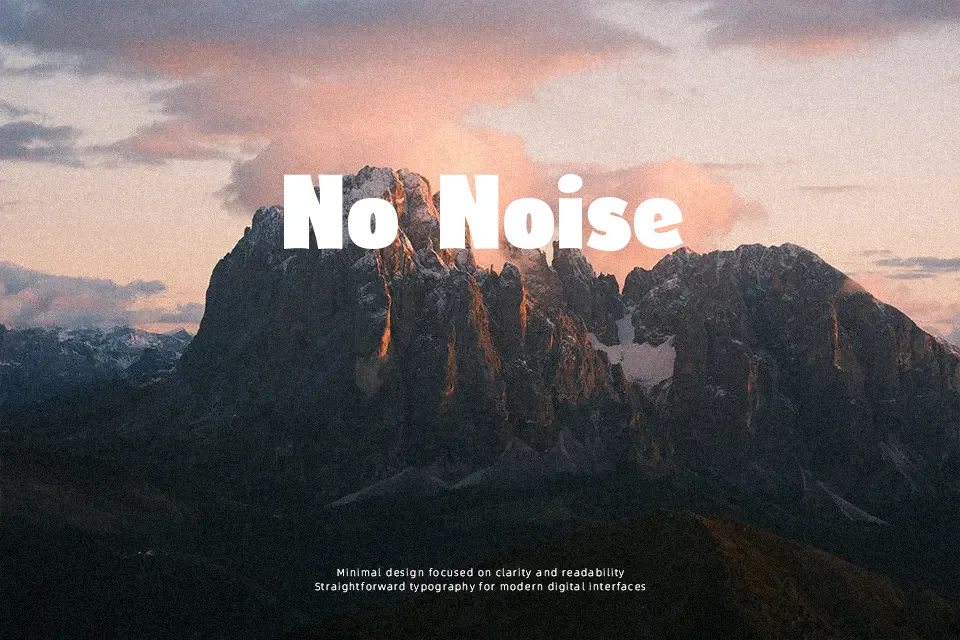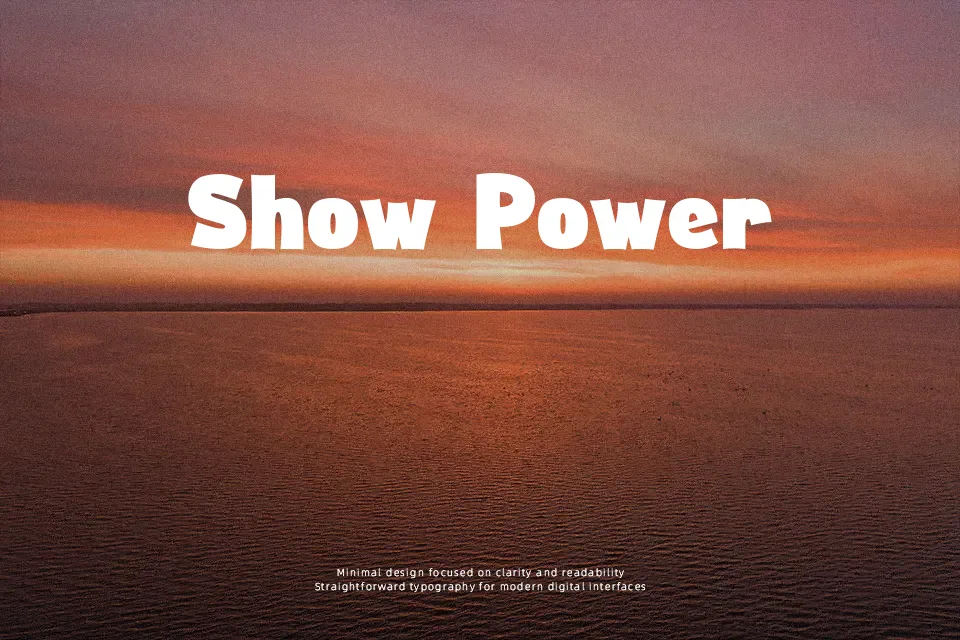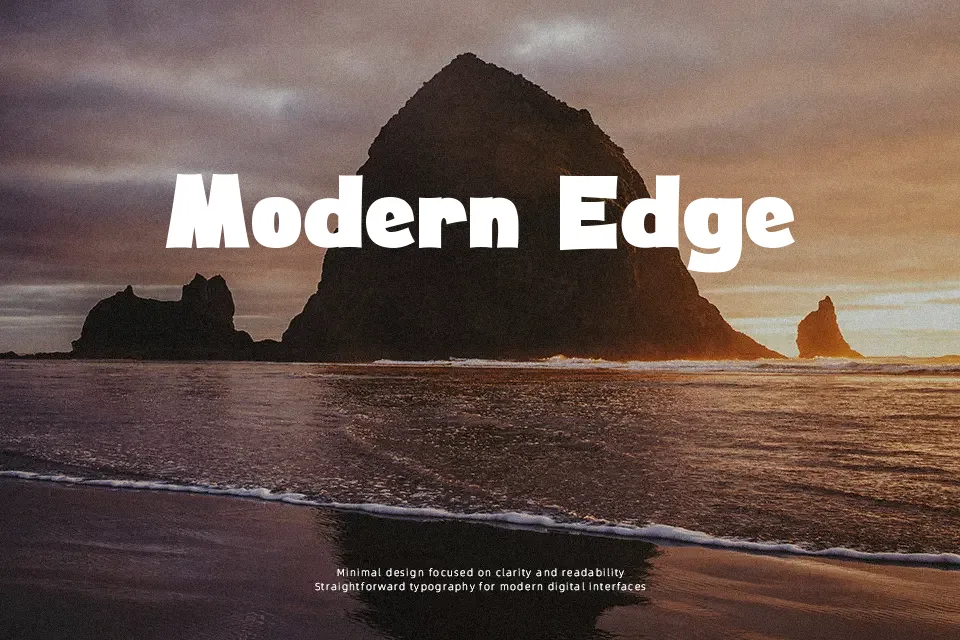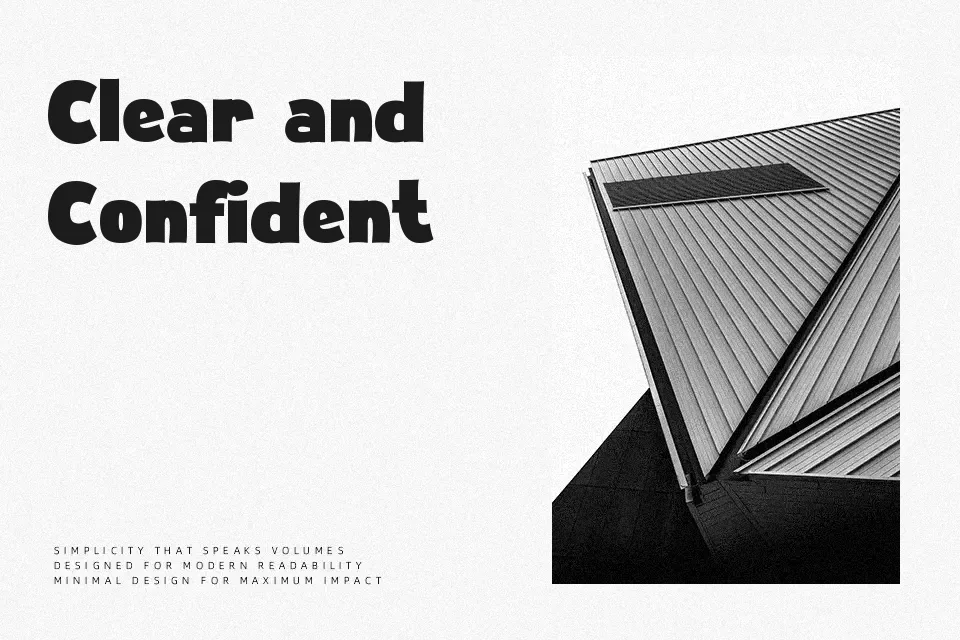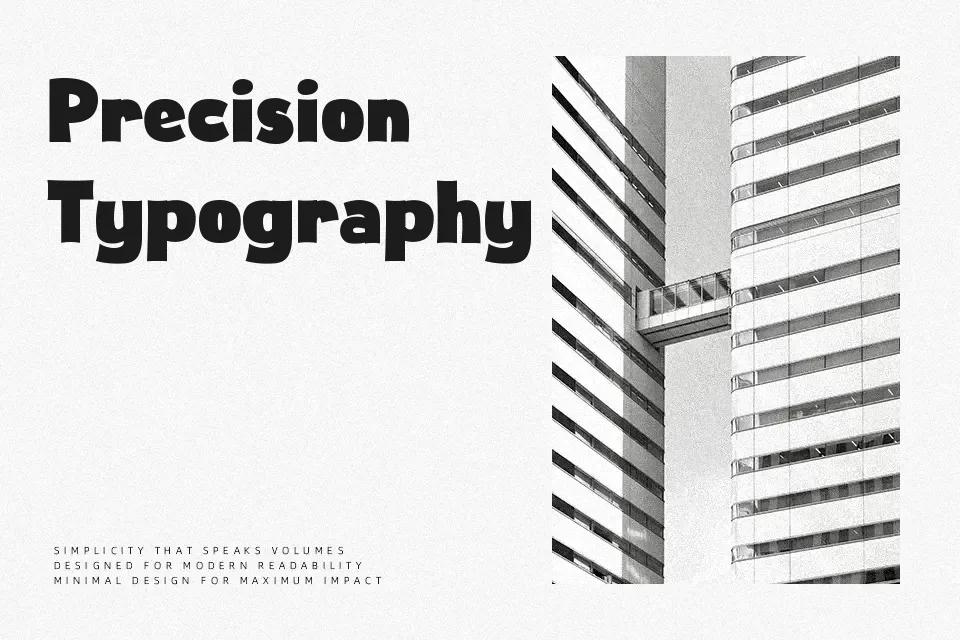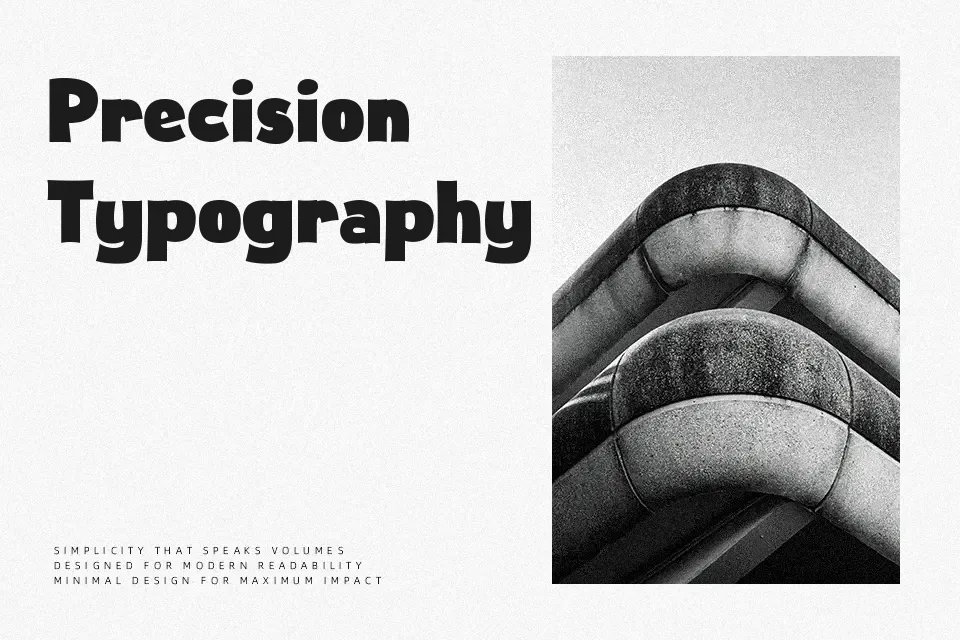
The Hound Font
The Hound Font introduces a chunky display sans serif defined by solid weights, softened corner junctions, and gently rounded terminals across its uppercase and lowercase sets. Proportions favor an expanded, punchy footprint where compact character spacing maintains visual cohesion across large headings. The glyphs show minimal stroke contrast, giving every character uniform density that holds up reliably in toy packaging, animated title cards, and storybook covers. The letterforms remain easy to distinguish in short display text, though the heavy mass and compact interior counters reduce reading comfort across extended body paragraphs and fine technical labels.
Best For: children’s book covers, animated series titles, board game packaging, toy brand logos
Not Ideal For: continuous editorial paragraphs, technical documentation, mobile app body text, legal disclaimer labels